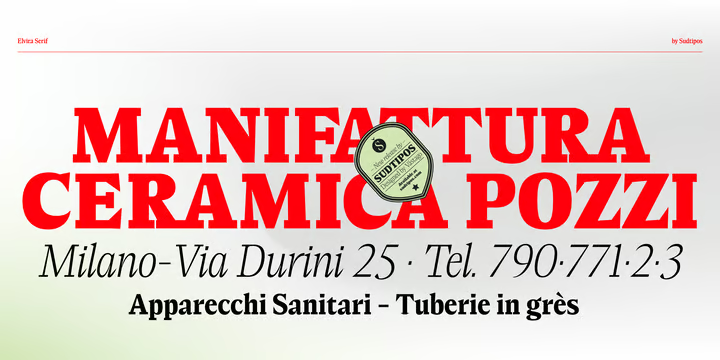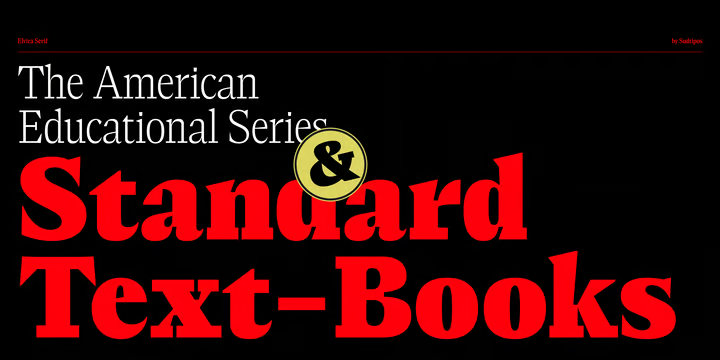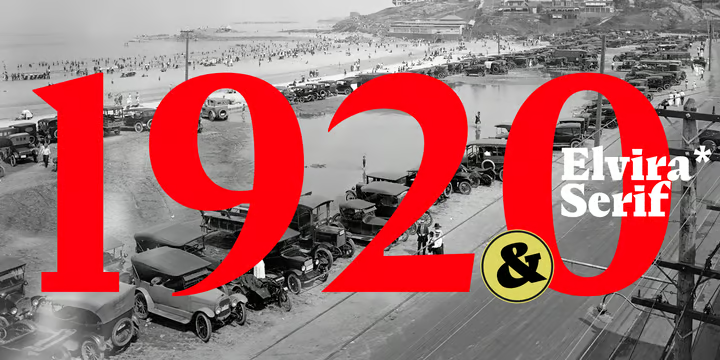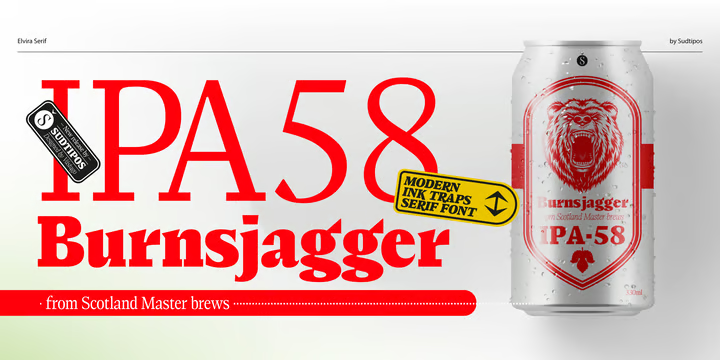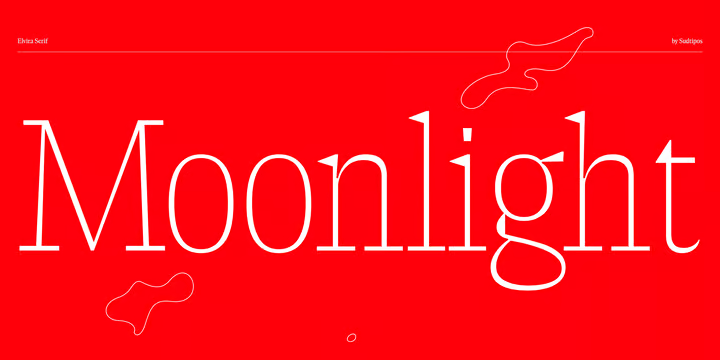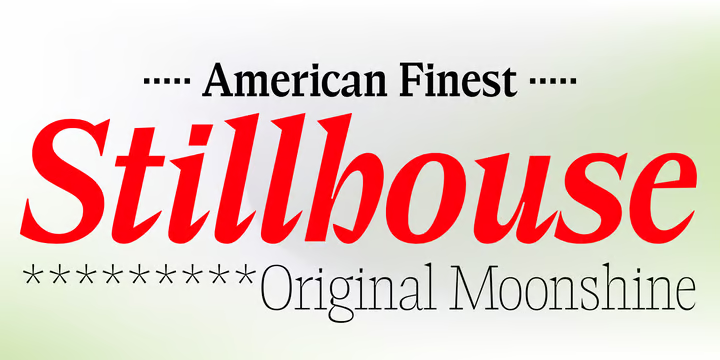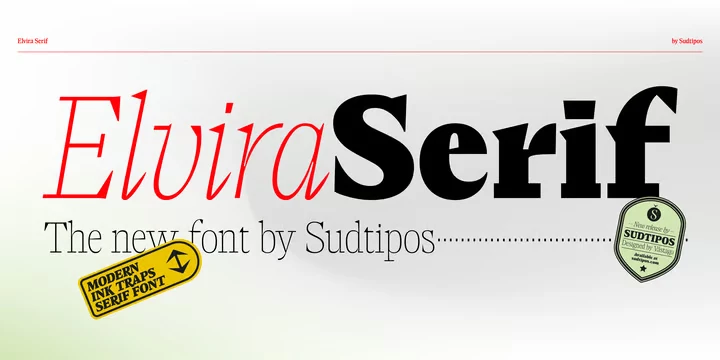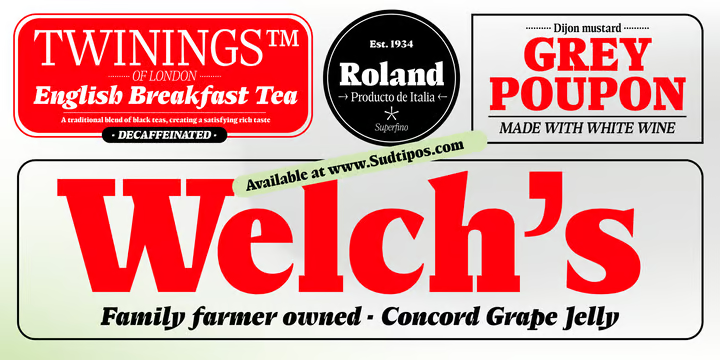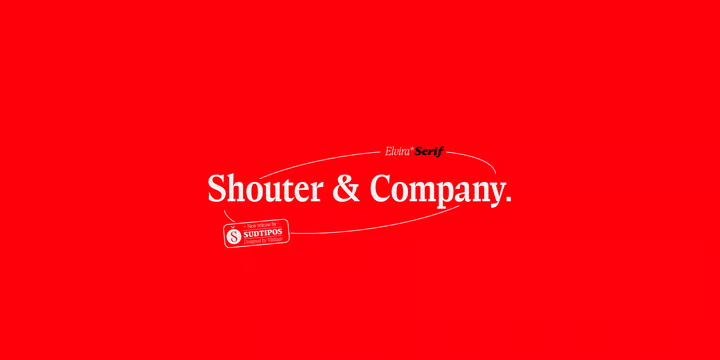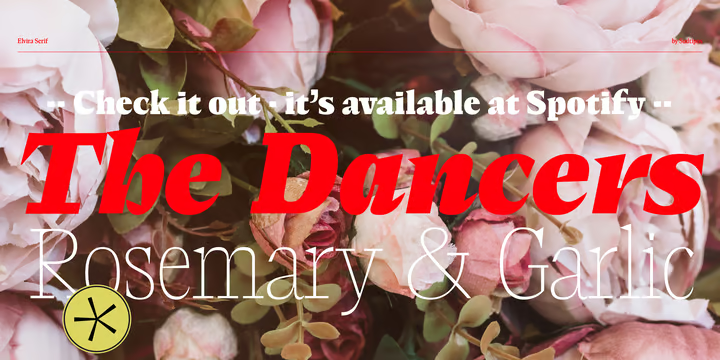
Elvira Serif Font Family
Elvira Serif is a typeface family that proposes to make the use of display serifs a little more fun, including in its anatomy some sharp points, ink traps implanted in s…
Elvira Serif is a typeface family that proposes to make the use of display serifs a little more fun, including in its anatomy some sharp points, ink traps implanted in some glyphs, and the formality of a traditional serif. All of these elements make Elvira Serif a great option that balances the contemporary with traditional touches. Elvira Serif has 9 weights, as well as true italics, which gives it dimension and versatility in its use. It can be used for a wide variety of purposes: it works well on the web, headlines and especially designed for book publishing at small sizes. Elvira Serif has the ability to look robust and imposing in its black weight, and subtle and elegant in its light weight. Enjoy it, it is made with a lot of passion and fun by Sudtipos and Vástago.
Elvira Serif Font Family gives long-form text a classic, trustworthy rhythm — ideal for magazine spreads, annual reports and book interiors.
Pair Elvira Serif Font Family with generous letter-spacing for wordmarks in fashion, hospitality, wine and jewellery branding.
Use Elvira Serif Font Family for slide titles in Keynote, PowerPoint or Google Slides to add authority without looking dated.